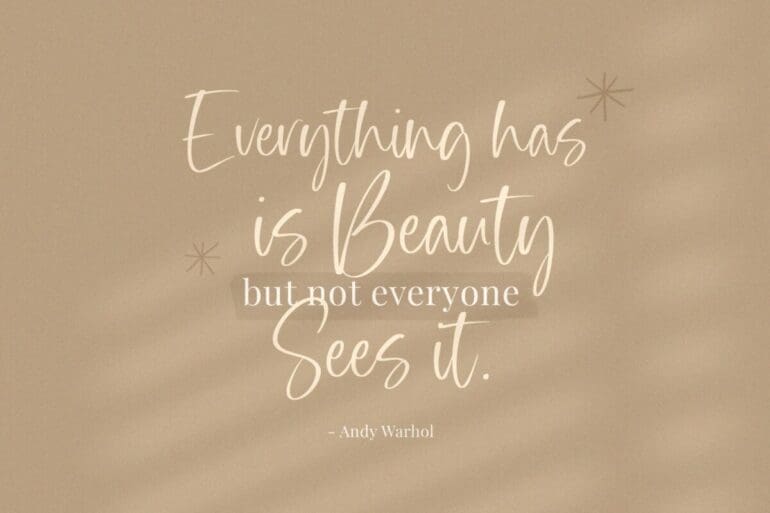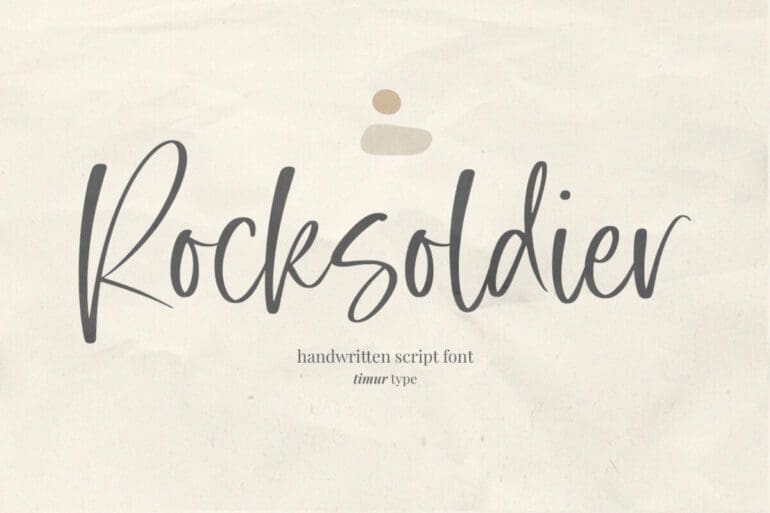
Rocksoldier Handwritten Font
Rocksoldier is an exquisite handwritten font, masterfully designed to become a true favorite. It maintains its classy calligraphic influences while feeling contemporary and fresh. Fall in love with it and bring your projects to the highest levels!